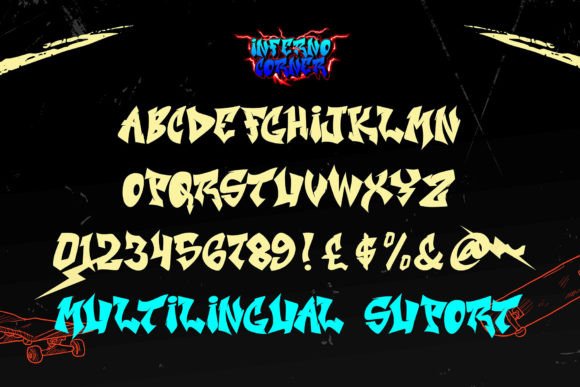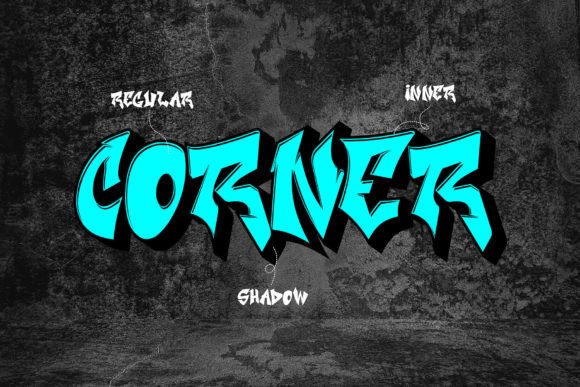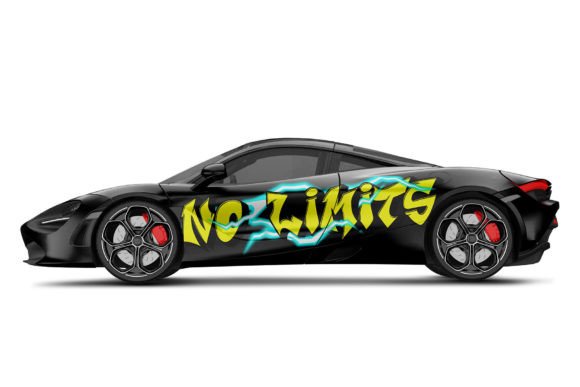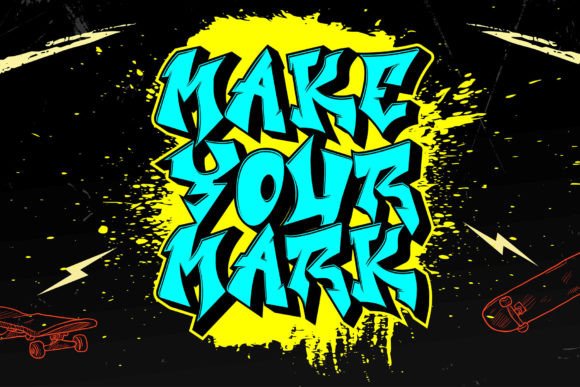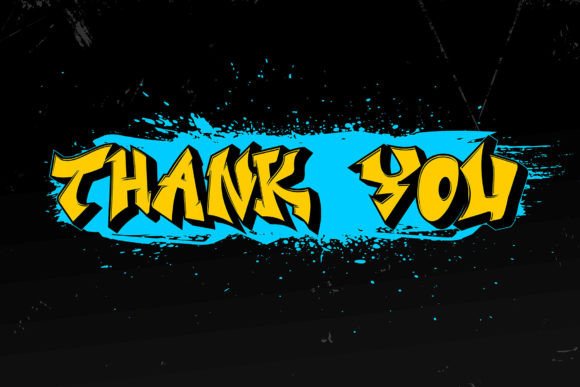
Introduction to Inferno Corner Font
Have you ever been stuck on a creative project, struggling to find the perfect font that captures the essence of your idea? It’s that moment when you’re browsing through design resources, searching for the perfect typography to elevate your work. For designers, finding a font that complements their vision can be a game-changer, and that’s where the Inferno Corner Font comes in.
With its 3D layered graffiti style and sharp corners, the Inferno Corner Font is a high-quality design resource that can add a striking touch to any creative project. Whether you’re working on a poster, street art, or any urban-themed design, this font is sure to grab attention with its bold and edgy style. And the best part? It’s available for free download, making it an accessible design resource for designers of all levels.
Honest Review: Inferno Corner Font
I recently came across the Inferno Corner Font and was excited to give it a try. As a designer, I’m always on the lookout for unique and high-quality fonts that can add a touch of creativity to my projects.
- ✨ Unique design: The font has a bold, fiery aesthetic that’s perfect for creative projects that require a bold statement.
- ✨ High quality: The font is well-designed and rendered with a crisp, clear appearance.
- ⚠️ Limited transparency options: The font is a solid color, which might not be ideal for designs that require a transparent background.
- ⚠️ Limited font sizes: While the font is available in various sizes, it might not be suitable for extremely large or small text sizes.
Overall, I’m impressed with the Inferno Corner Font. While it has its limitations, its unique design and high quality make it a valuable resource for designers working on creative projects. I’d definitely recommend it for projects that require a bold, eye-catching font.
To get the most out of the Inferno Corner Font, experiment with different font sizes, styles, and colors. Use it in combination with other design elements to create a visually striking effect. Consider using it for headings, titles, or emphasis text to add a touch of sophistication to your design.
The Inferno Corner Font is ideal for use in various creative projects, including: graphic design, digital art, web design, print media, and more. It’s a versatile font that can be used for a wide range of applications, from business cards to posters and beyond.